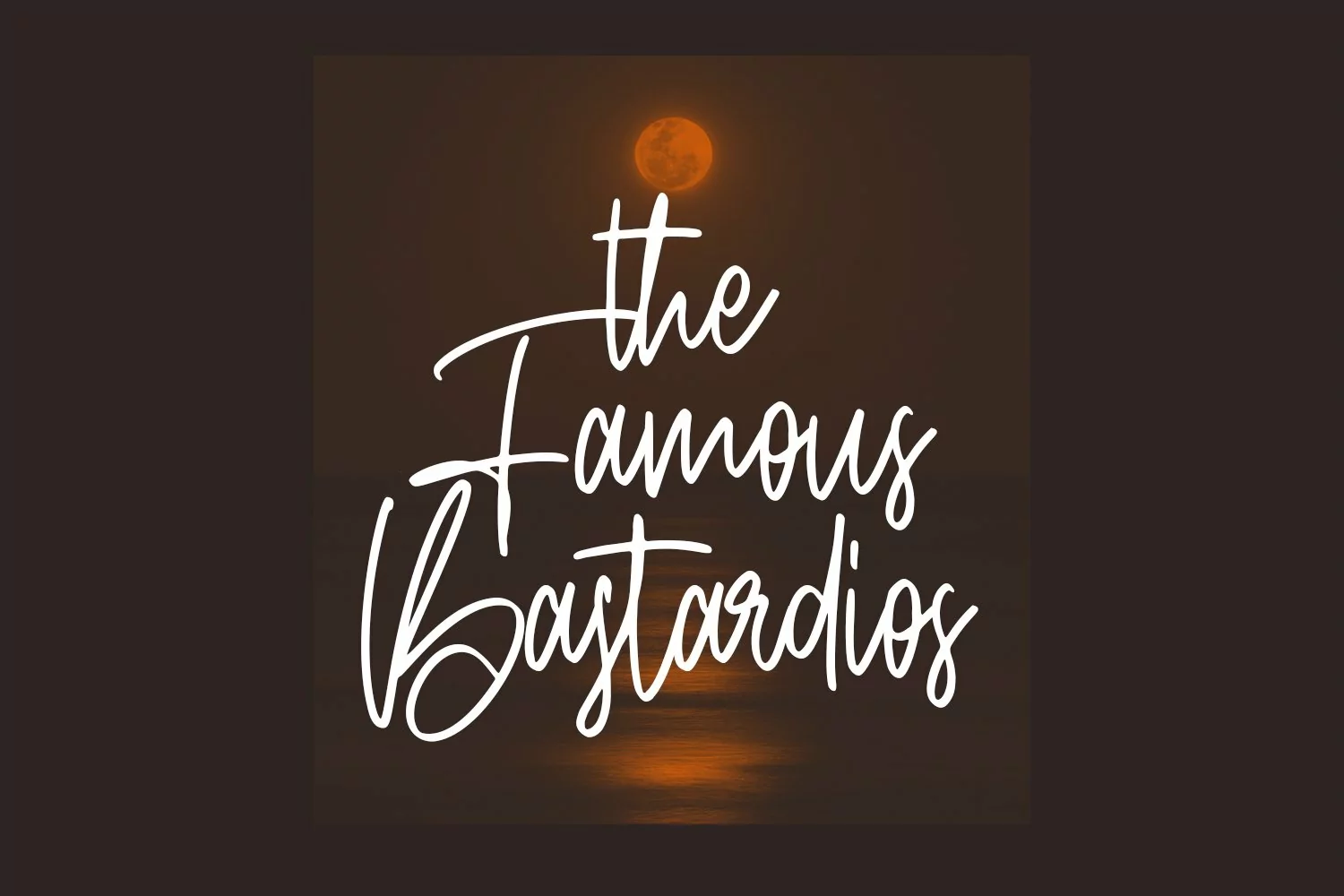
Reality Clubs is a casual signature script font. With upright regular clean stroke, fun character with some of ligatures. To give you an extra creative work. Reality Clubs font support multilingual more than 100+ language. This font is good for logo design, Social media, Movie Titles, Books Titles, a short text even a long text letter and good for your secondary text font with sans or serif. Make a stunning work with Reality Clubs font.